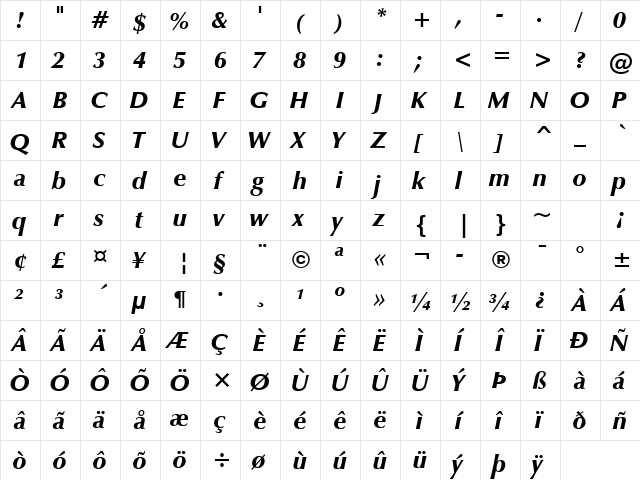
ZapfHumnst Ult BT Ultra Italic
ZapfHumnst Ult BT is a composed and adaptable typeface that performs quietly and consistently across a wide range of design contexts. The slanted form adds forward momentum and visual energy.